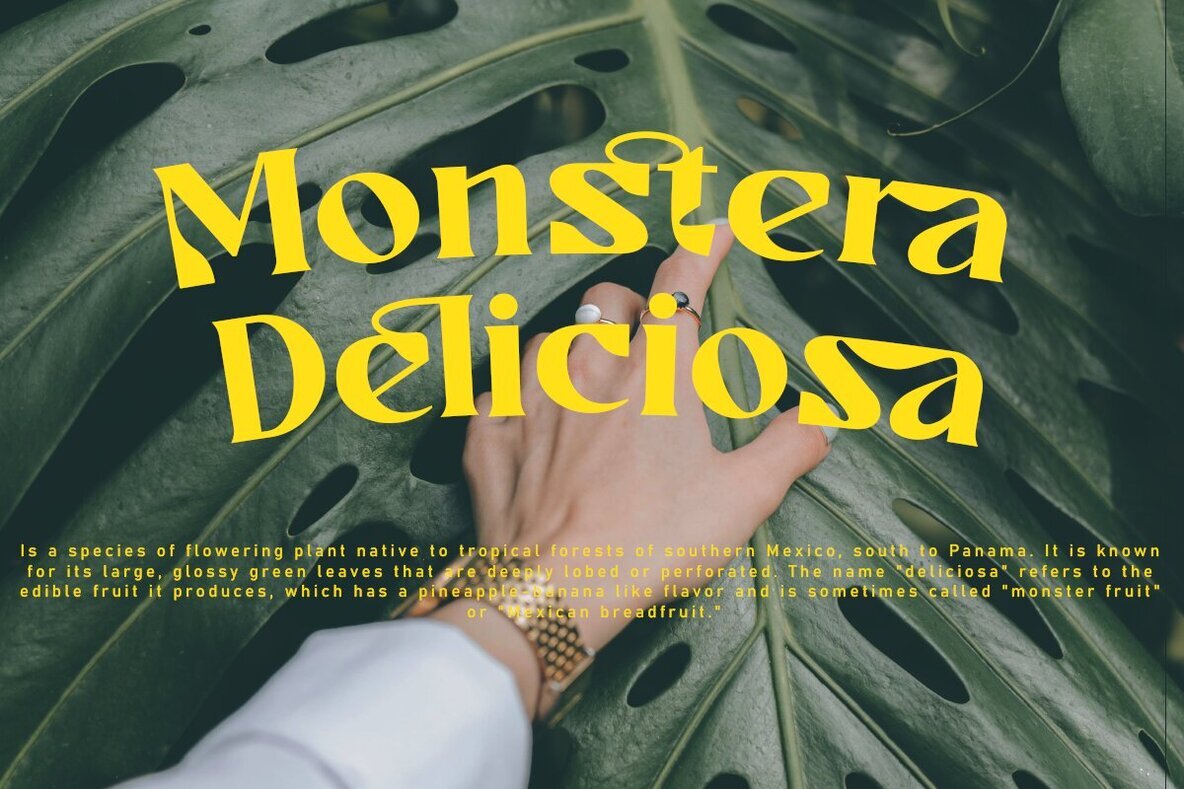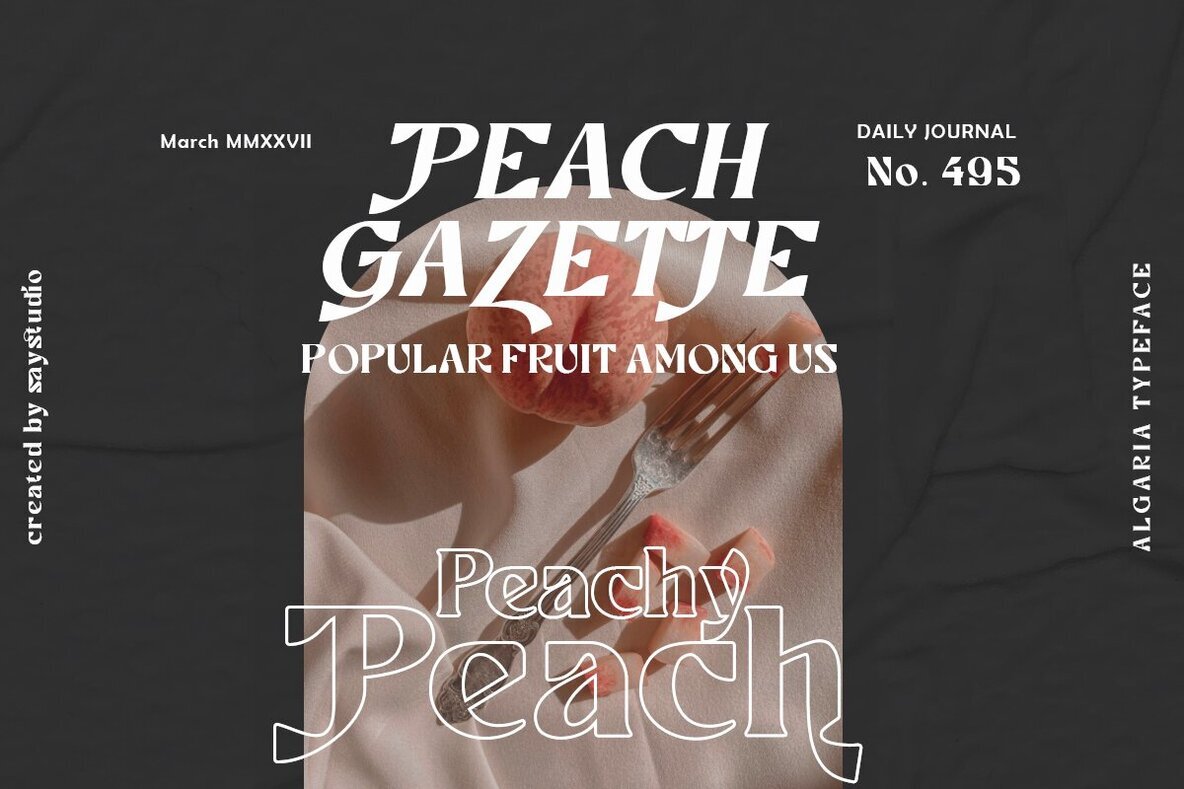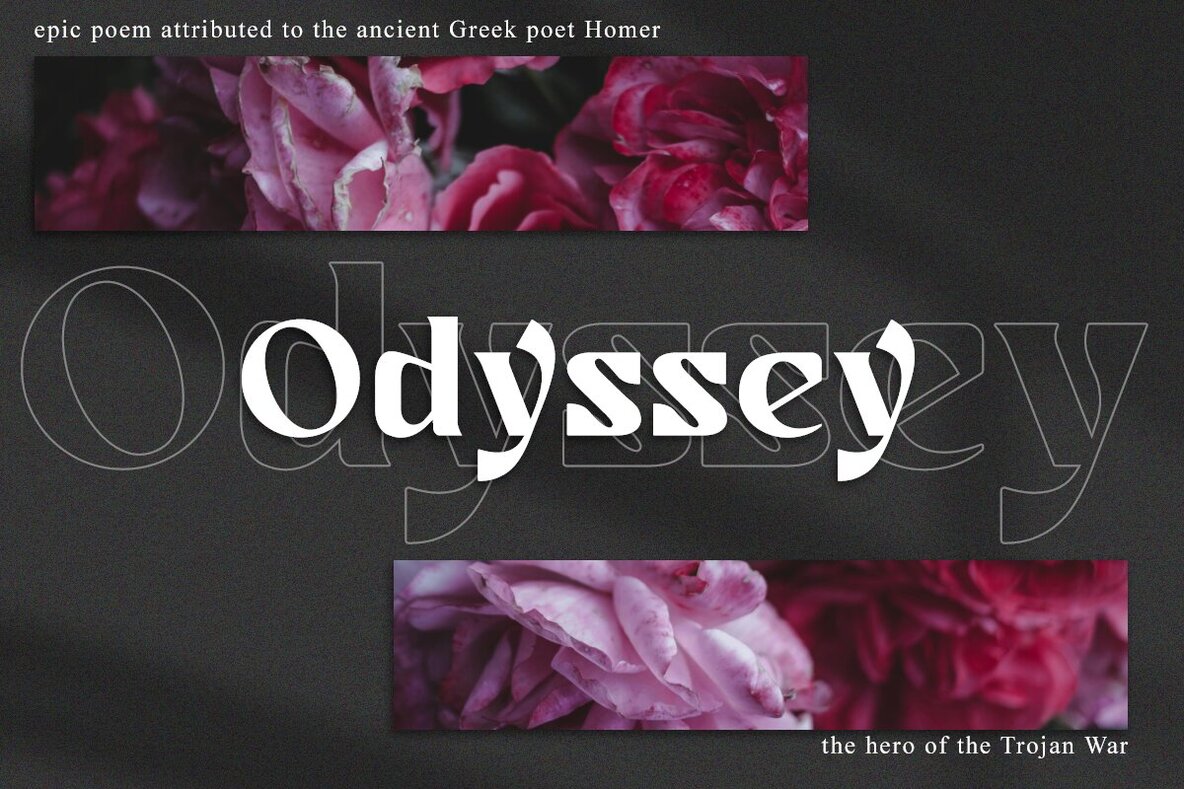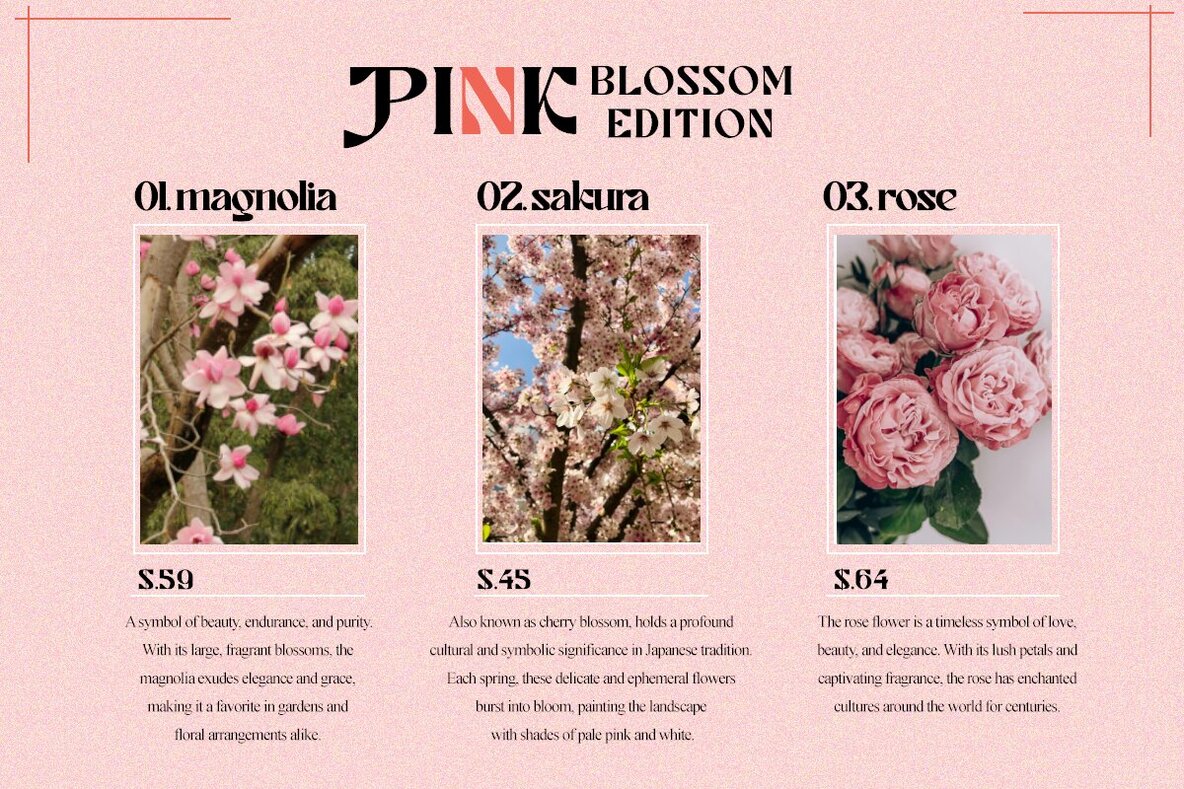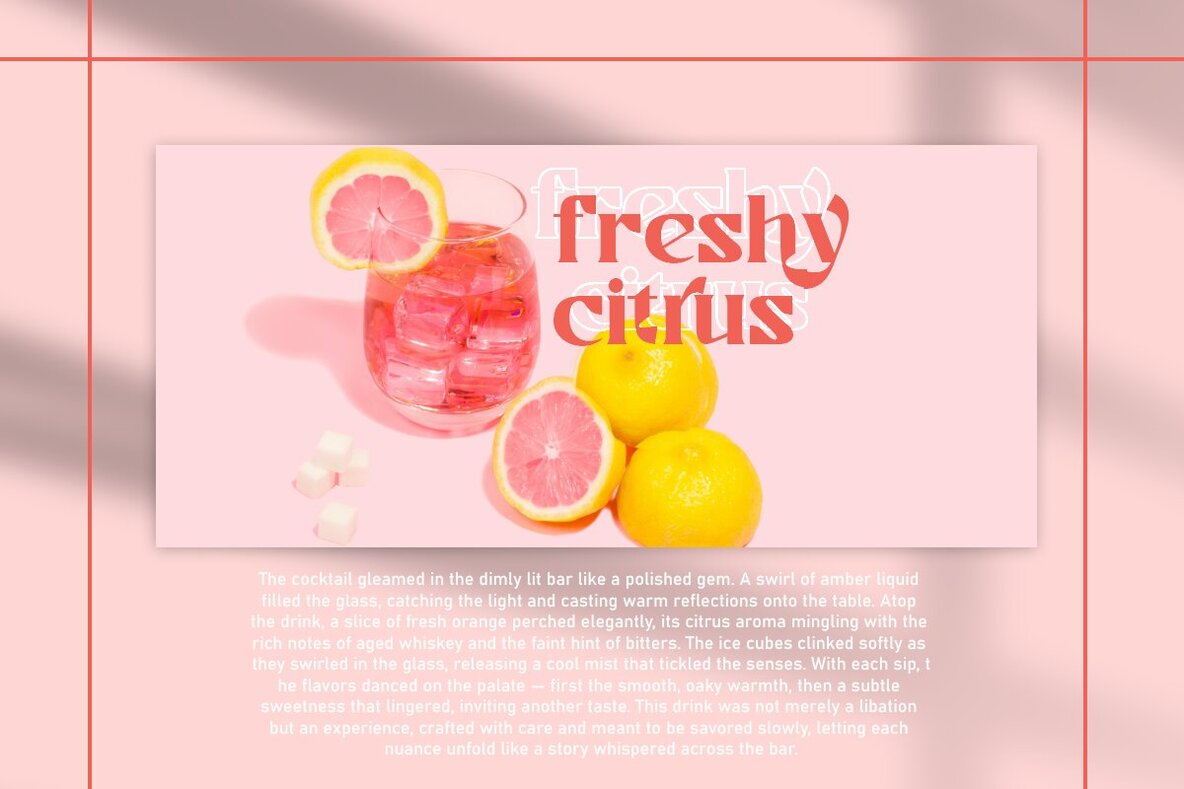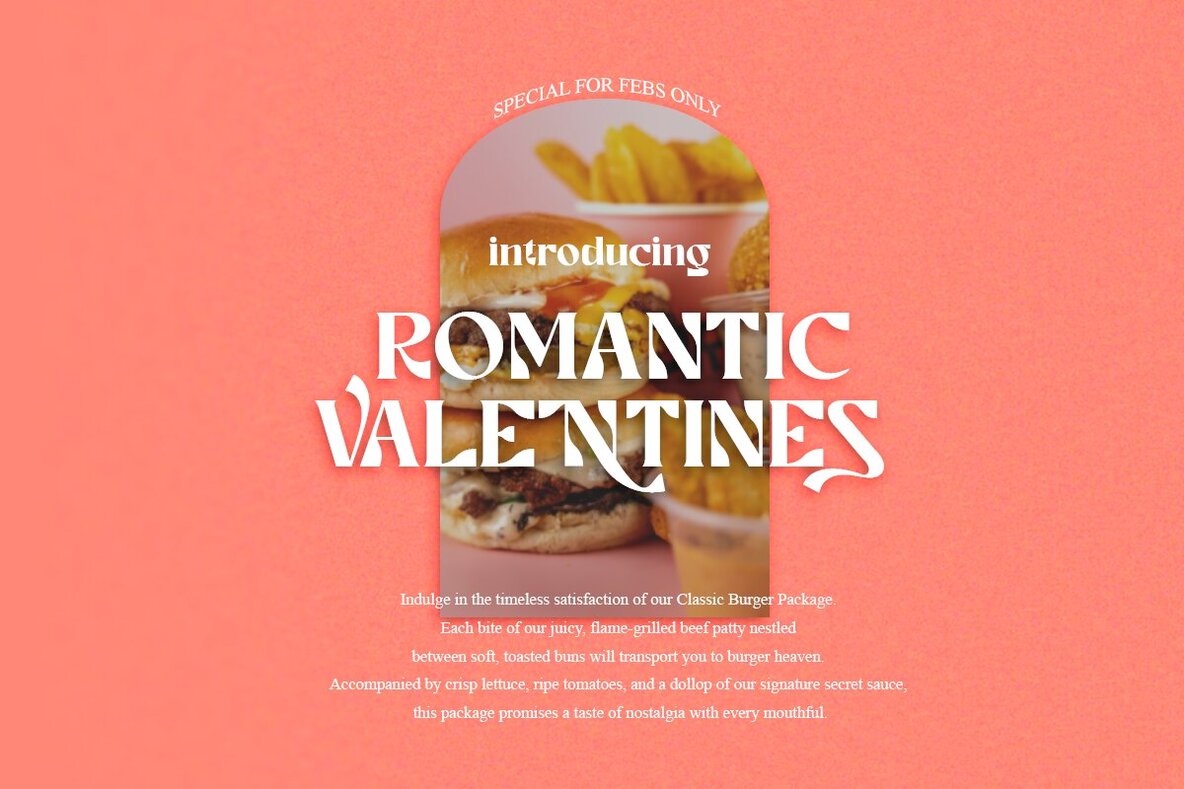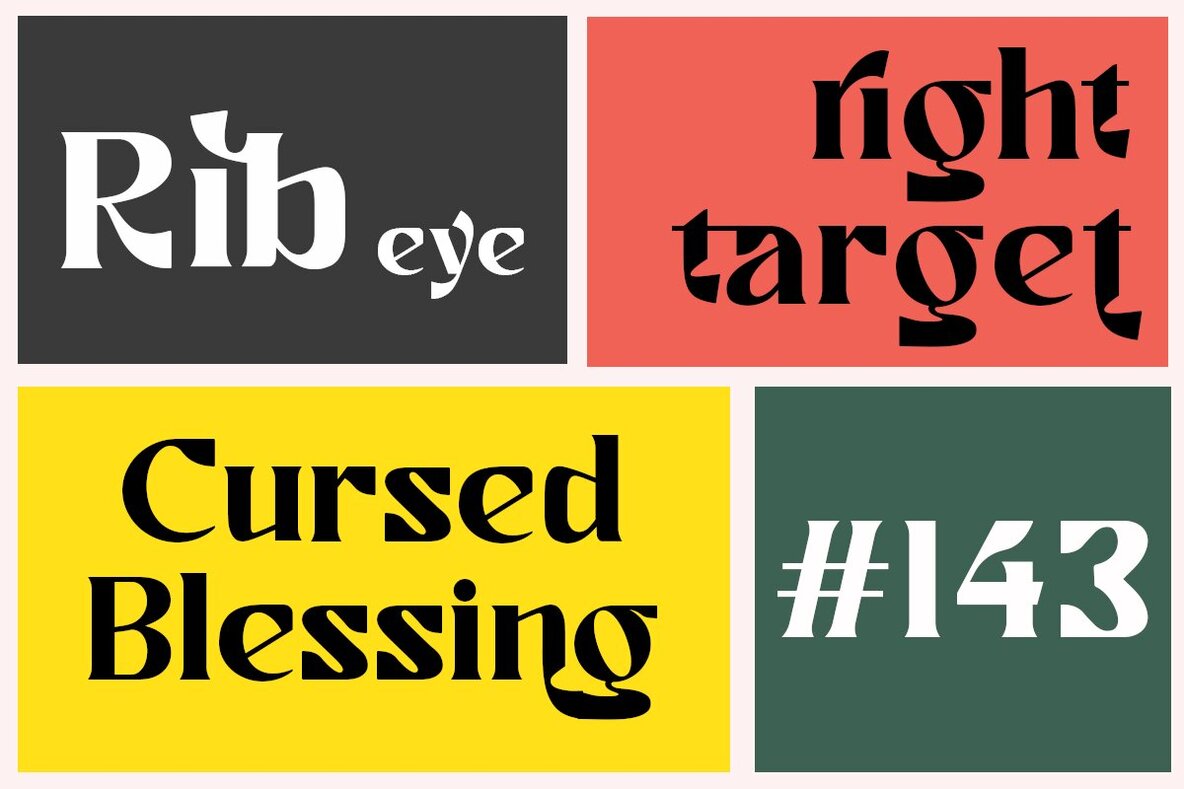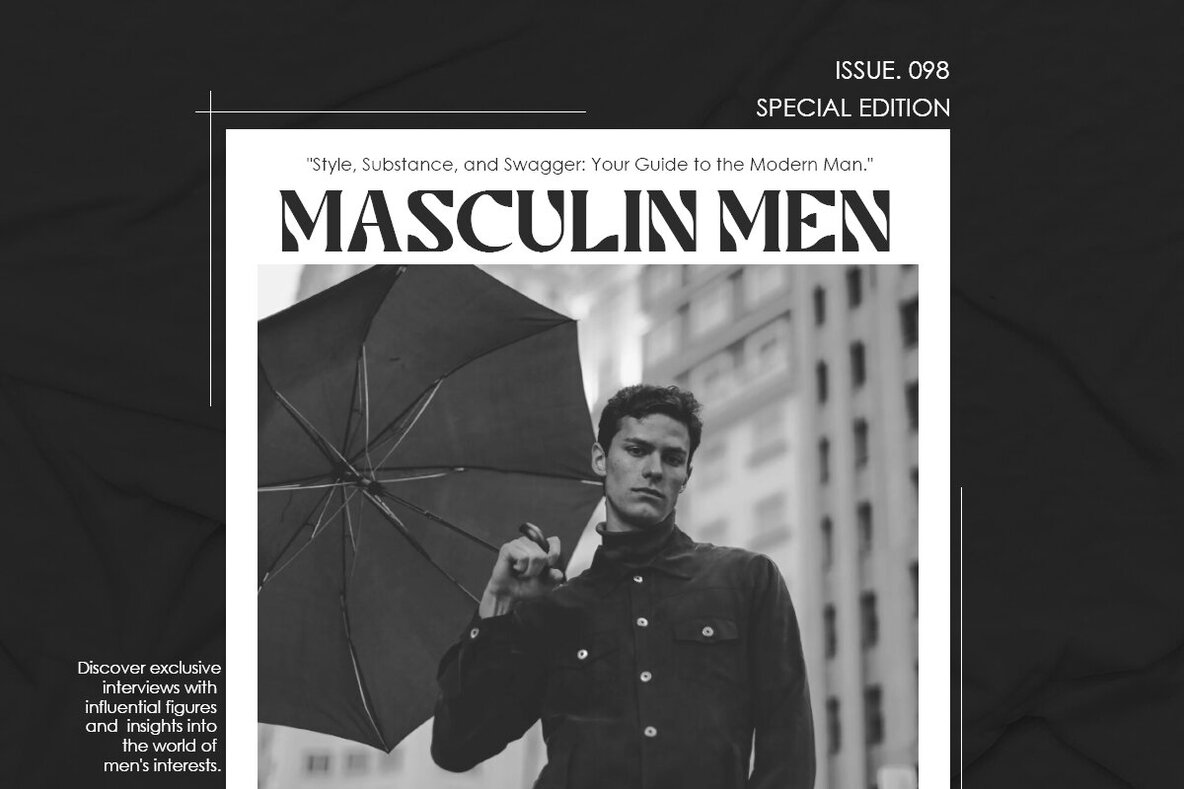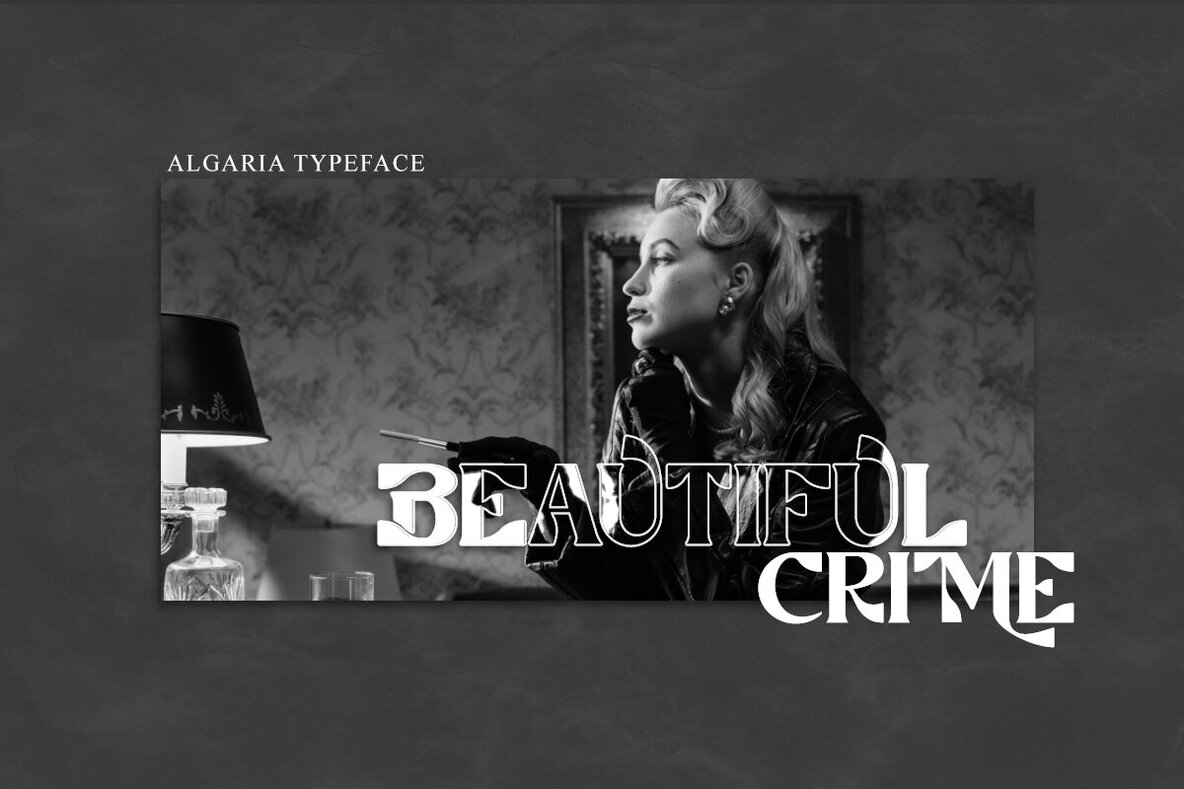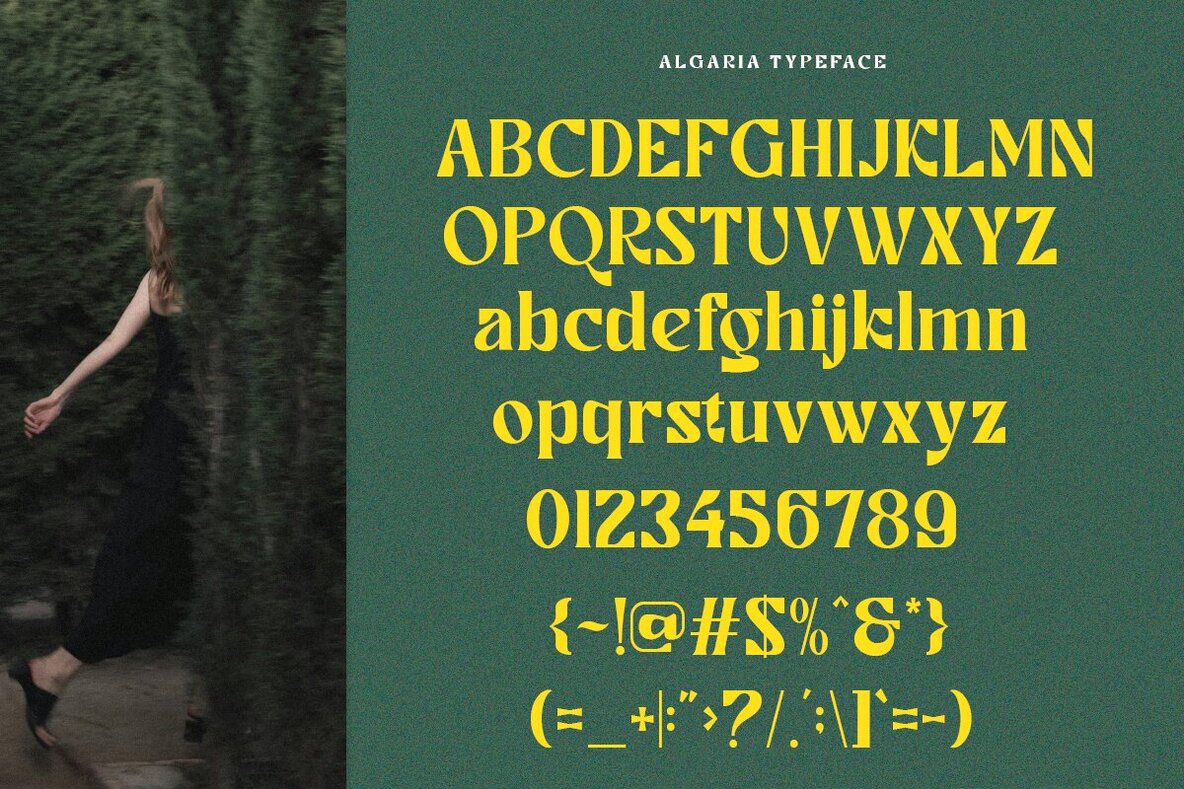
Algaria Font
Algaria is a modern serif typeface characterized by its bold and distinctive glyphs. This versatile font seamlessly blends retro, vintage, and modern aesthetics, making it ideal for a diverse range of design applications. Its unique collection of shapes ensures that your projects will stand out with a distinctive flair.
The font includes alternate and ligature features, offering enhanced flexibility for creating logos, brands, products, labels, websites, and posters. Algaria's design ensures that each character maintains a strong presence, making it a perfect choice for eye-catching and memorable designs.